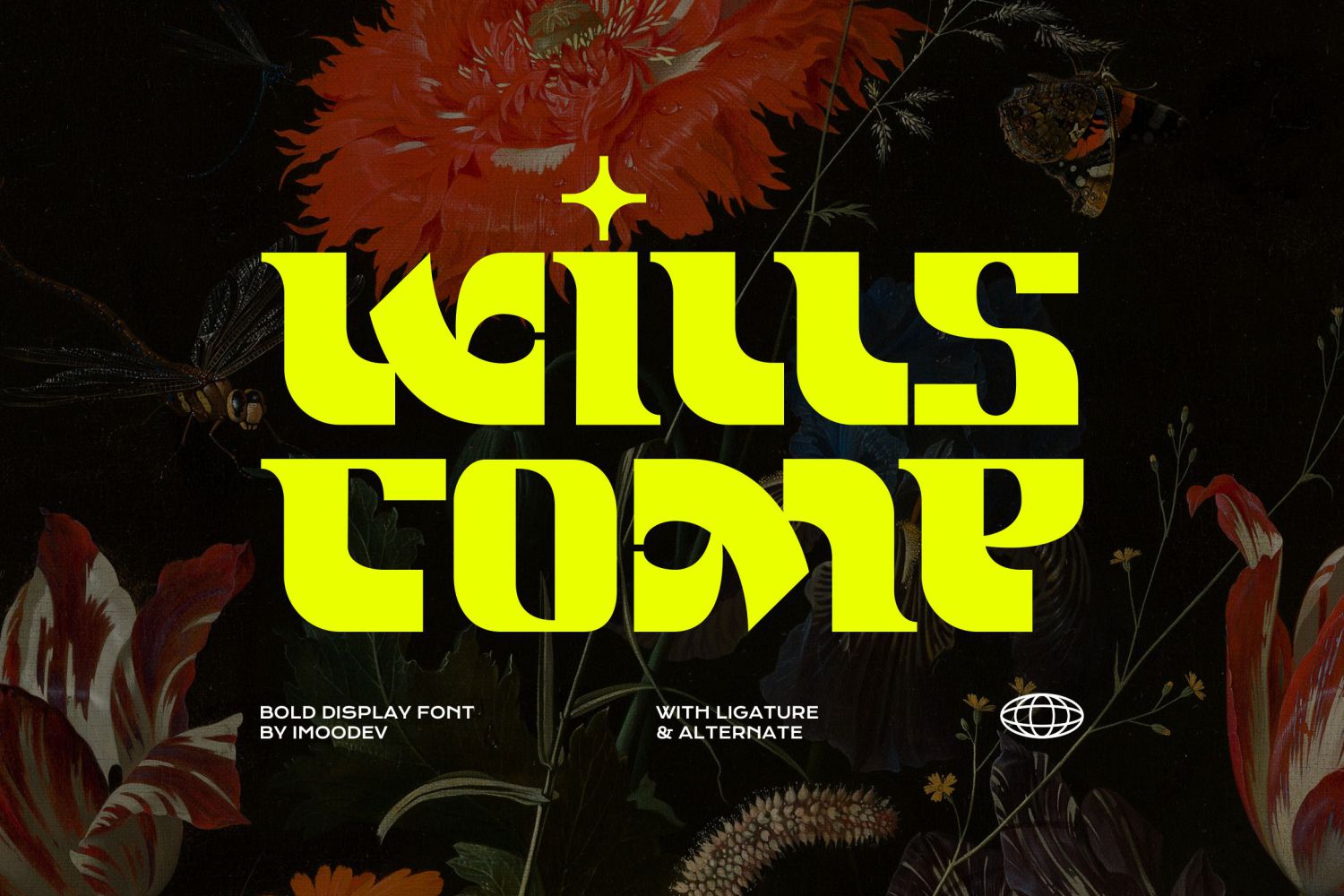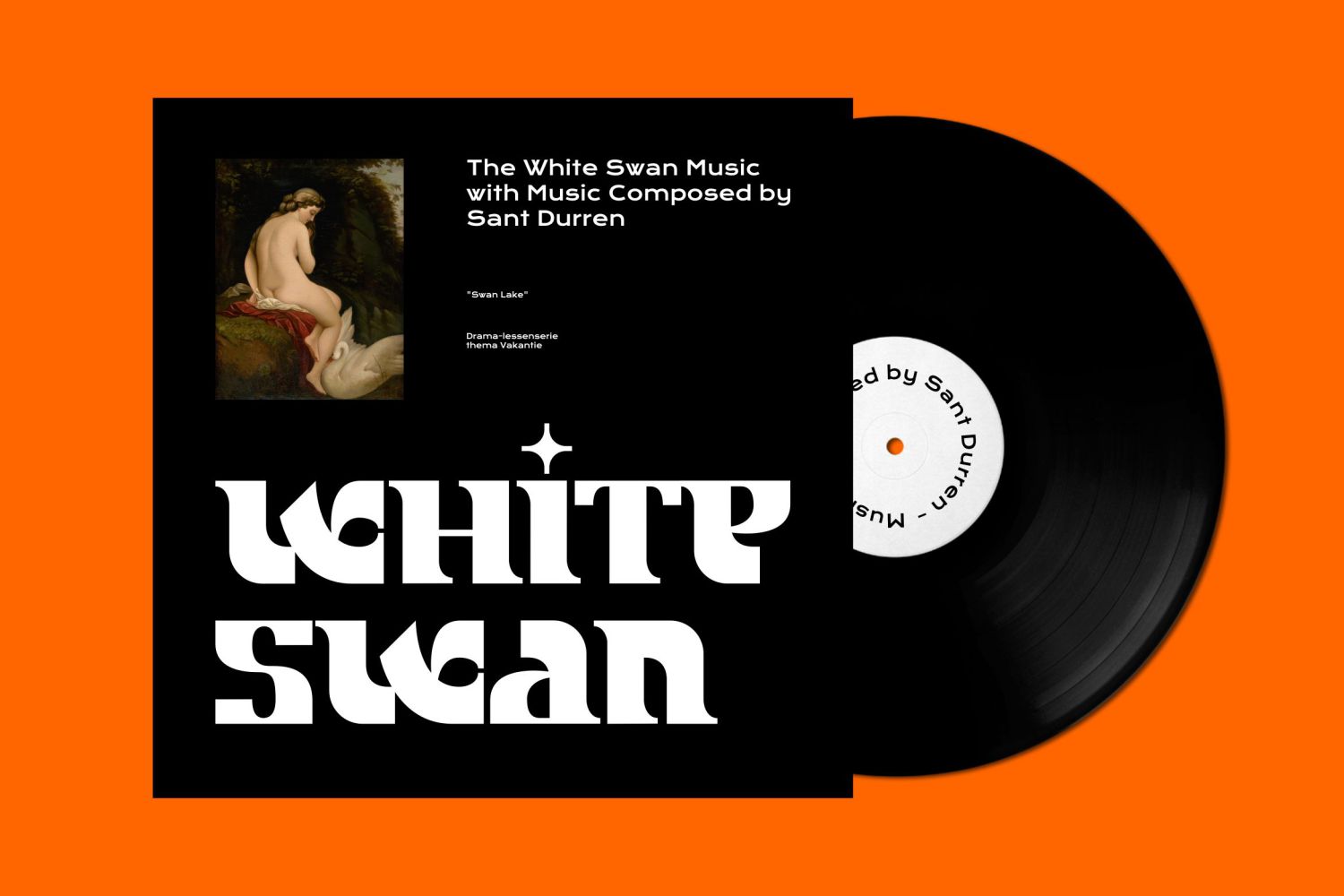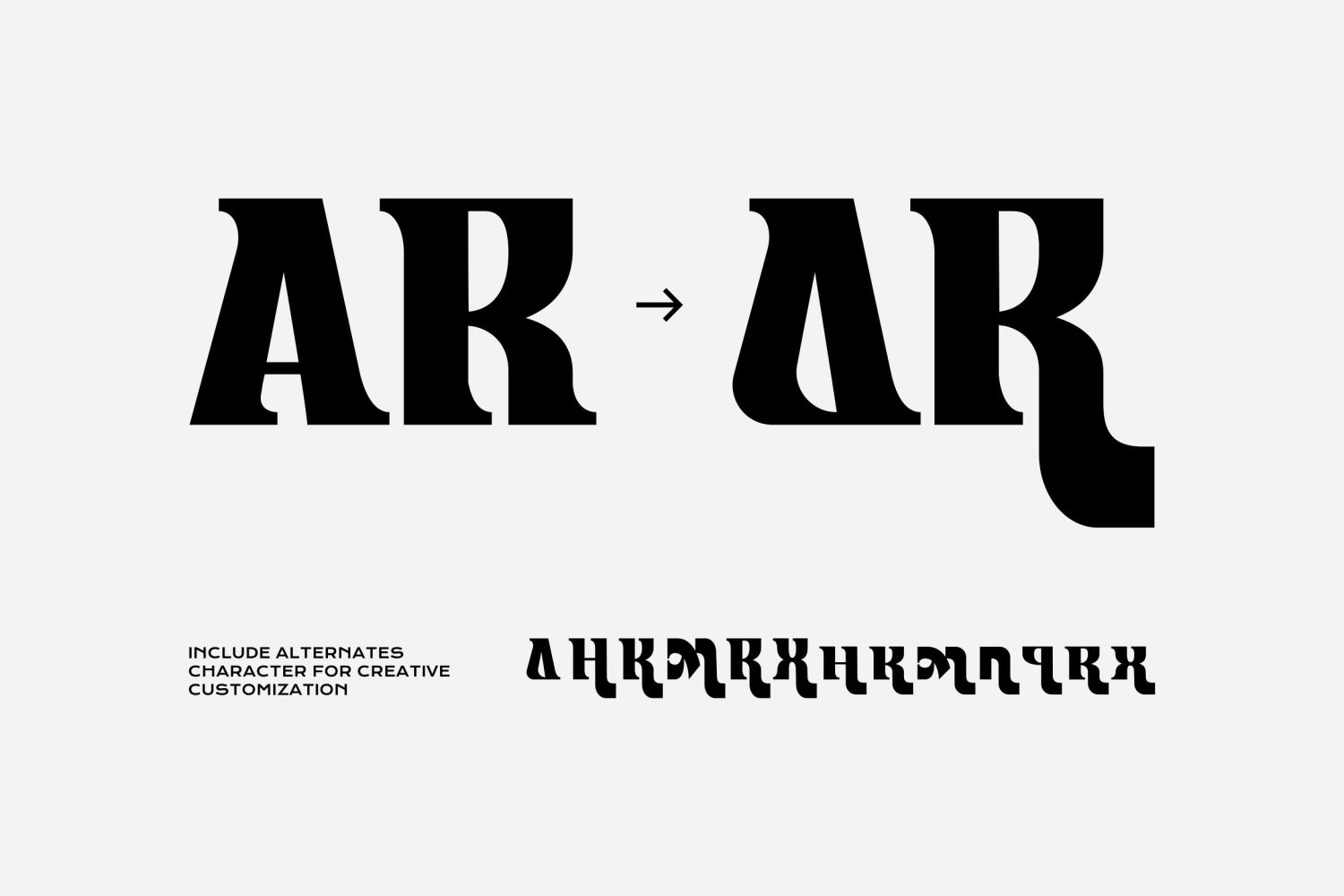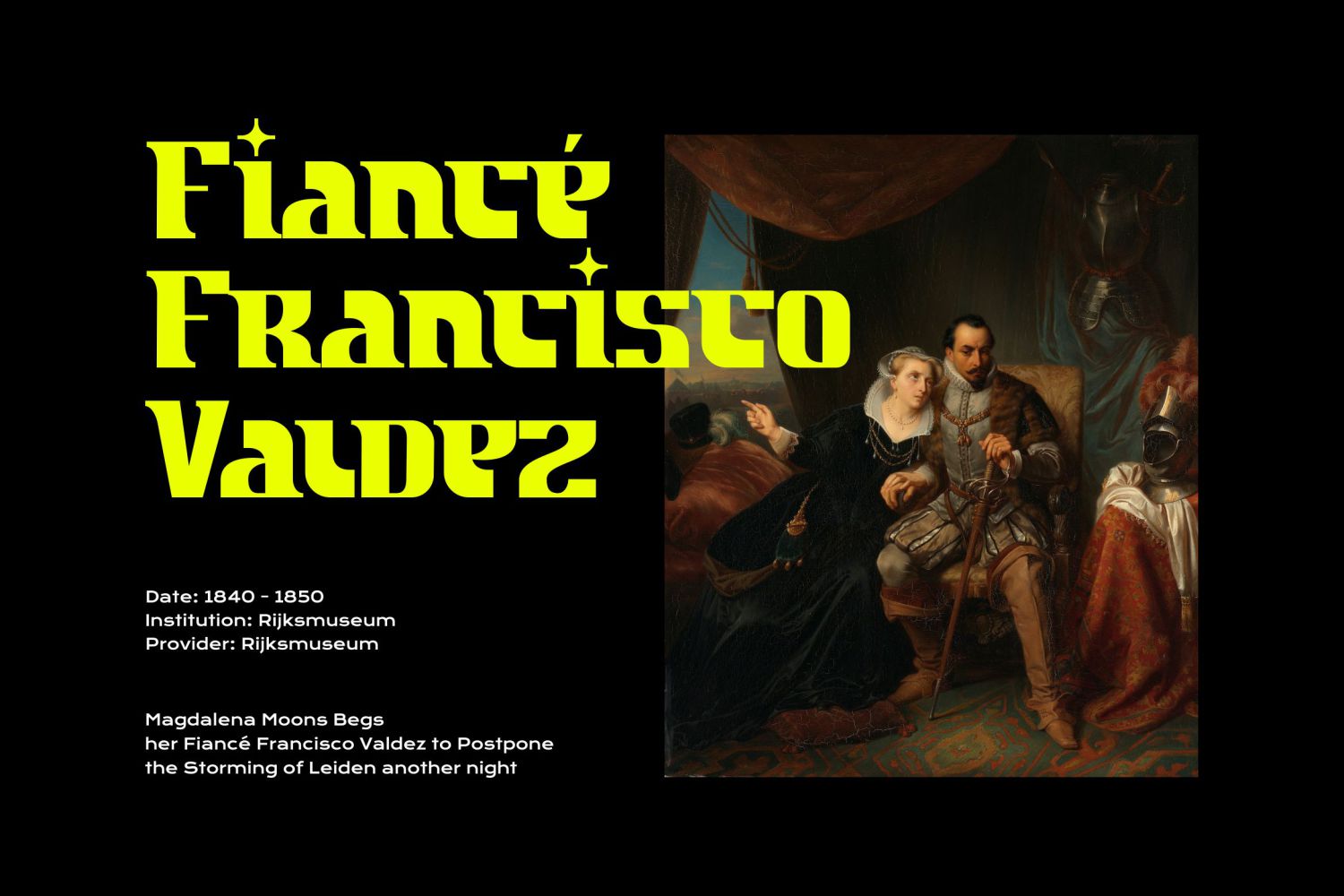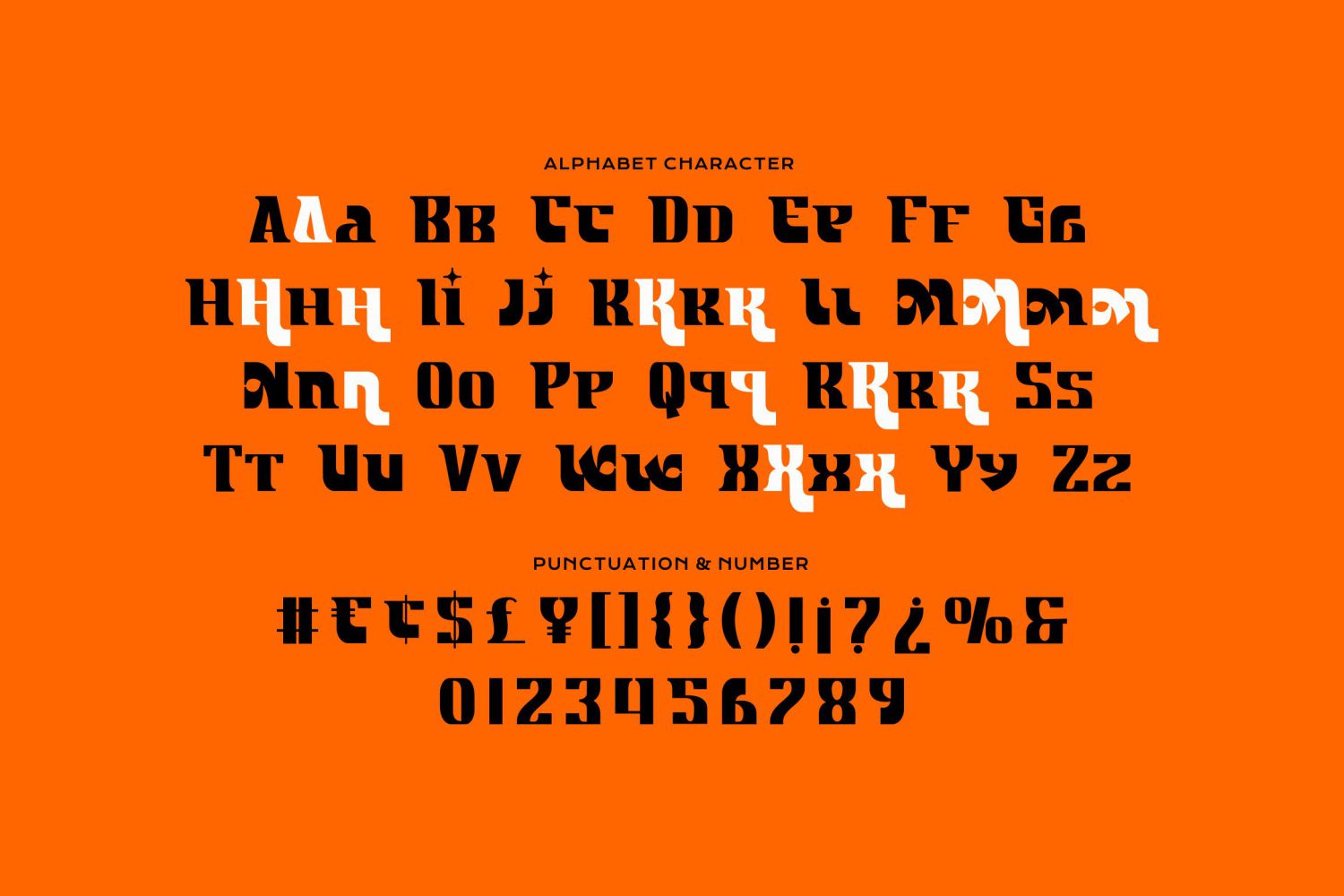
Wills Come is a bold display font that merges retro gothic energy with a modern experimental twist. Its thick, sharp-edged strokes and unique alternates give every composition a dramatic, eye-catching presence. Designed with creativity in mind, this typeface works perfectly for album covers, streetwear branding, posters, and editorial layouts that need a fearless and powerful identity. The bold weight ensures strong readability while maintaining a distinct artistic flair.
With ligatures and alternate characters included, Wills Come offers versatile customization for designers who want to break away from the ordinary. Its unique character set balances between classic gothic inspiration and futuristic expression, making it a perfect choice for projects in music, fashion, lifestyle, and creative industries. Whether for headlines, packaging, or statement designs, this font ensures your message comes through with impact and personality.
Wills Come